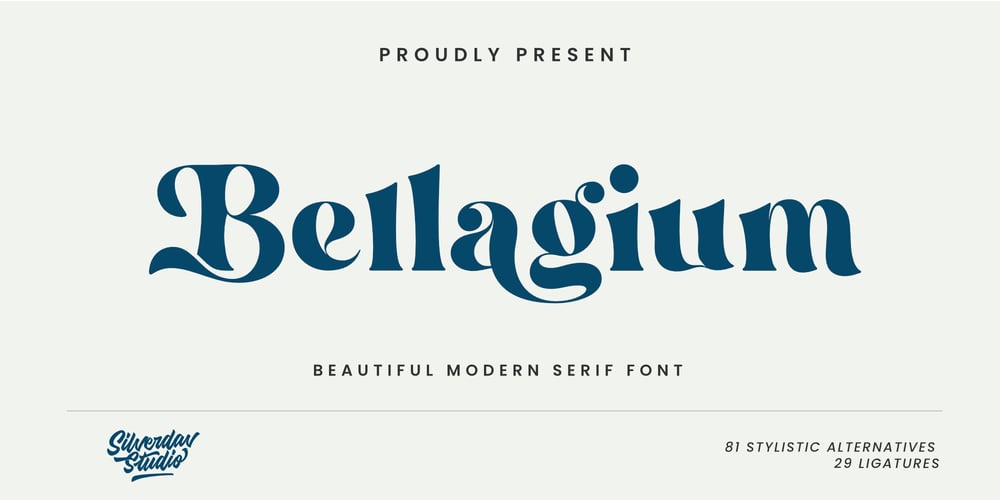
Bellagium Font Family was designed by David Kasidi and published by Silverdav. Bellagium contains 1 styles and family package options. Introducing “Bellagium font” is a serif font that is truly unique, with a more modern style and unique curves that add a special and glamorous feel to your designs.There are lots of alternates that you can use to make your designs more beautiful and charming, plus ligatures, of course, your designs will be more charming.If you have any questions, please contact us